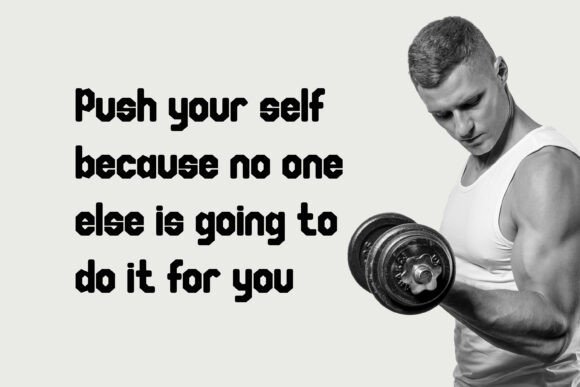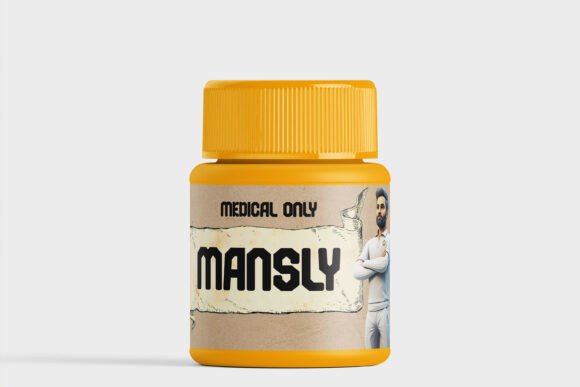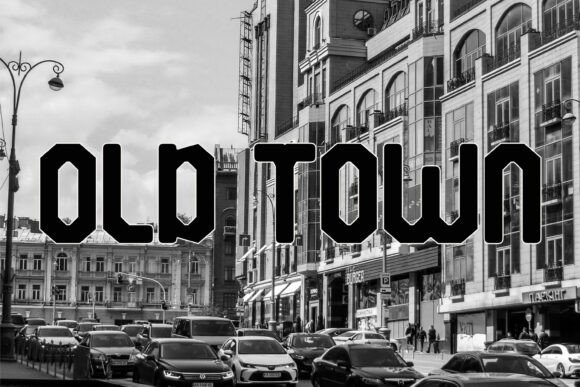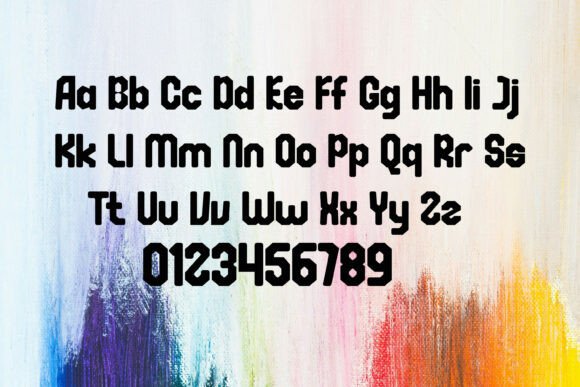
The Rush of Speed: Unleashing the Power of Bateë Font
Imagine you’re at the starting line of a high-stakes racing competition, the crowd’s cheering, and the sound of revving engines is deafening. The moment the green light flashes, the rush of adrenaline is electrifying. It’s a feeling that needs to be captured in a font that embodies speed, power, and dynamism. That’s where the Bateë Font comes in – a stunning sports font designed to leave a lasting impression.
Bateë Font is more than just a bold font; it’s a game-changer for designers looking to create eye-catching titles, logos, and posters that exude energy and movement. Its wide, modern letters are perfect for high-speed car racing titles, running competitions, cycling, and other sports-themed projects. Whether you’re working on a fashion branding campaign or creating album covers, Bateë Font is the perfect choice to add a touch of speed and dynamism to your designs.
Bateë Font Key Features
- Font Family: Bateë Font is a sans-serif font family designed for digital use.
- Character Set: Supports a wide range of languages, including Latin, Cyrillic, and Greek scripts.
- Unique Characteristics: Designed with a focus on legibility and readability, Bateë Font features a clean and modern aesthetic with subtle rounded edges.
- Resolution: Optimized for use at high resolutions, making it ideal for digital displays and printing.
- Size: Available in multiple font sizes, ranging from 8 to 72 points.
Bateë Font Review
Bateë Font is an interesting sans-serif font that has gained popularity among designers. Here’s my honest take on it.
- ✨ Unique character set with interesting flourishes: Bateë Font has a distinct, modern feel to it, with unique character set and accents.
- ✨ Versatile font: It works well for both digital and print applications, from logos to body text.
- ✨ Excellent for creative industries: Bateë Font’s modern feel makes it a great choice for creative industries such as design, advertising, and fashion.
- ⚠️ Limited legibility: In smaller font sizes, Bateë Font can become difficult to read, especially in print.
- ⚠️ Not suitable for body text: Due to its unique character set, Bateë Font may not be the best choice for large blocks of text.
Bateë Font is a great choice for designers looking to add a unique touch to their projects. Its modern feel and versatility make it an excellent choice for creative industries. However, its limited legibility in smaller font sizes and unsuitability for body text are notable limitations. With proper use, Bateë Font can be a great addition to any design project.
Experiment with different font sizes, colors, and styles to create unique and visually appealing designs. Use Bateë Font in combination with other fonts to add depth and interest to your designs.
Bateë Font is ideal for use in creative projects such as logos, branding materials, and digital art. It’s also suitable for use in presentations, reports, and documents where a unique and eye-catching font is desired.
Q: What is the recommended line spacing for Bateë Font?
The recommended line spacing for Bateë Font is 1.2 to 1.5 times the font size. This line spacing provides adequate breathing room between lines, making it easier to read and understand the content. However, you can adjust the line spacing to suit your design requirements.